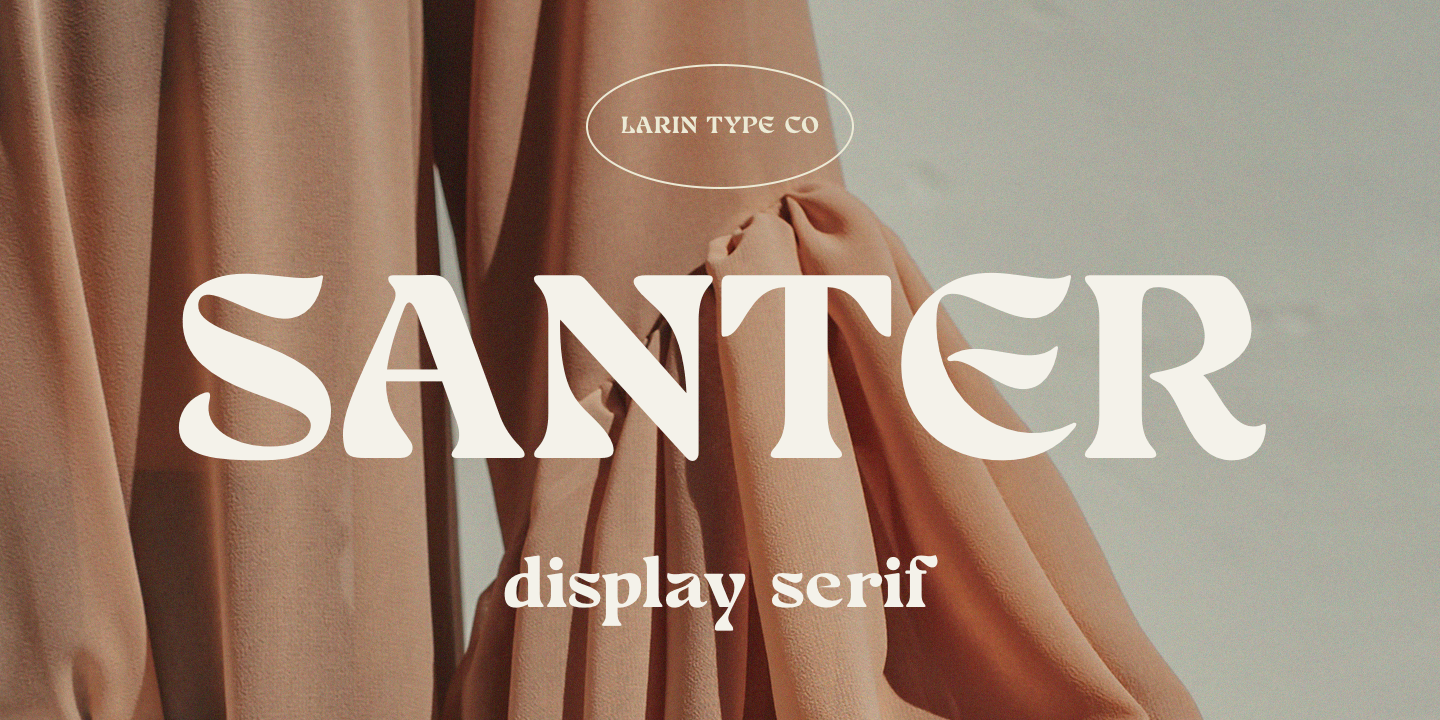
Santer Font is perfect for Christmas celebration materials, holiday greeting card designs, Santa Claus entertainment branding, festive winter event promotions, holiday shopping campaigns, and joyful Christmas marketing communications. Its festive character makes it ideal for Christmas event planners, holiday entertainment venues, Santa performance companies, Christmas market organizers, and any application requiring cheerful typography that conveys Christmas magic, holiday joy, and the warm spirit of seasonal celebration and gift-giving traditions.
Santer Font is exciting because it captures the joyful magic and warm celebration of Christmas through cheerfully crafted letterforms that embody the generous spirit and festive happiness central to holiday traditions. Its festive proportions and Christmas-inspired details evoke the cozy warmth of holiday gatherings and the delightful anticipation of Christmas morning, making it perfect for brands seeking to create authentic Christmas experiences and holiday memories. The font's Christmas character transforms communications into expressions of holiday wonder.
Santer Font family includes festively-designed weight variations typically featuring Light, Regular, Medium, and Bold options with Christmas styling that maintains holiday authenticity. The family often incorporates Christmas symbols, holiday ornaments, and seasonal elements designed for celebration applications, providing designers with comprehensive tools for creating authentic, Christmas-focused typographic compositions.
When selecting Christmas celebration typography solutions, Santer Font Free Download represents an exceptional choice for holiday and seasonal projects. This joyful typeface brings instant Christmas authenticity to any design, making it invaluable for holiday event organizers, Christmas entertainment companies, and seasonal businesses celebrating festive traditions. Whether you're developing Christmas event branding, creating holiday marketing campaigns, or designing seasonal celebration materials, Santer Font provides the festive joy and Christmas authenticity essential for capturing holiday magic in today's Christmas celebration marketplace.